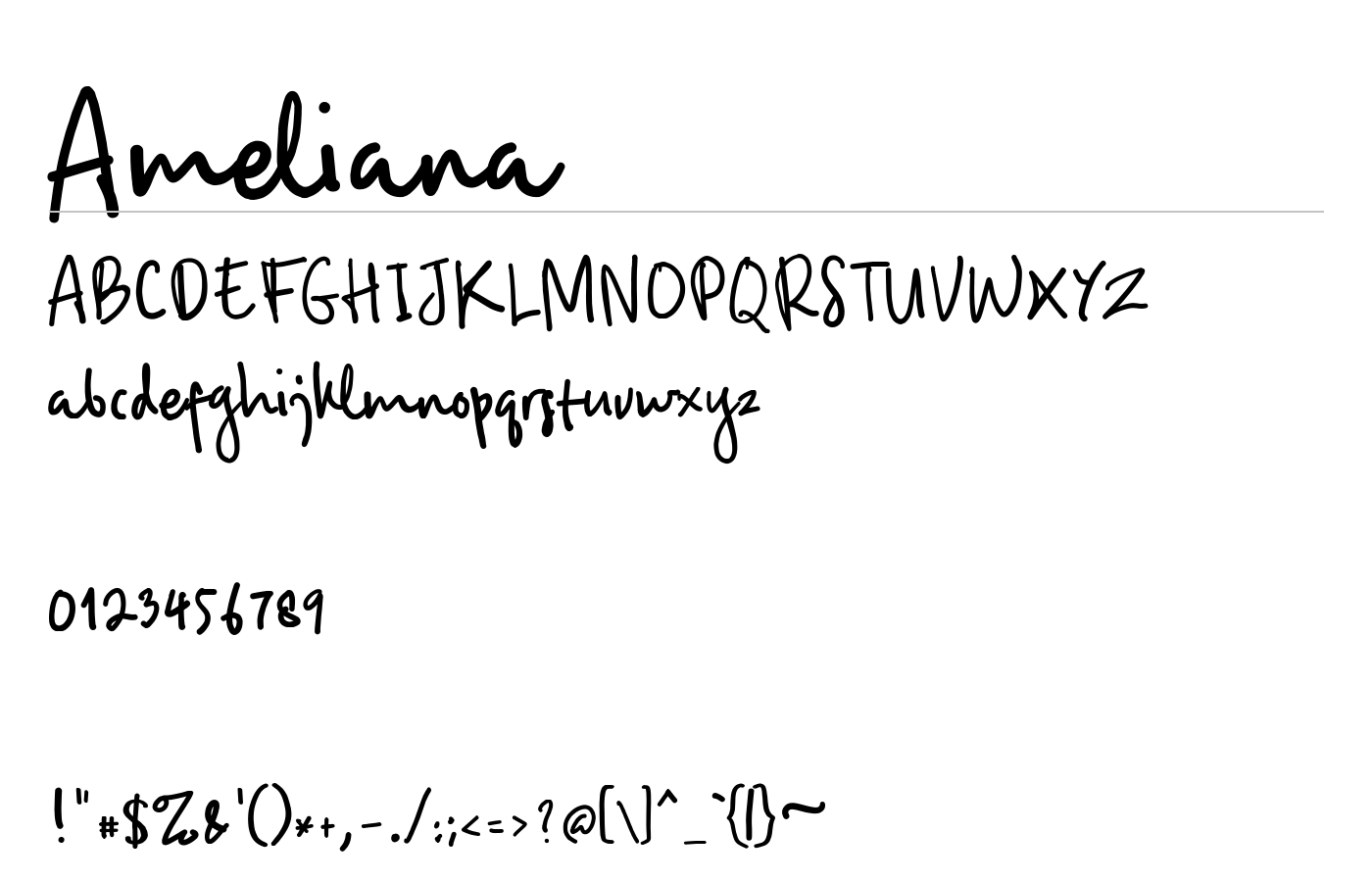
Ameliana is a casual handwritten font with a lively and friendly character, featuring a mix of playful uppercase and fluid lowercase letters with moderate contrast and organic stroke variation. Its informal, approachable style makes it ideal for personal branding, invitations, and creative projects where a warm, human touch is desired. This font works well in designs that aim to feel natural and personal, such as social media graphics, lifestyle blogs, and cozy packaging.
Ameliana Font